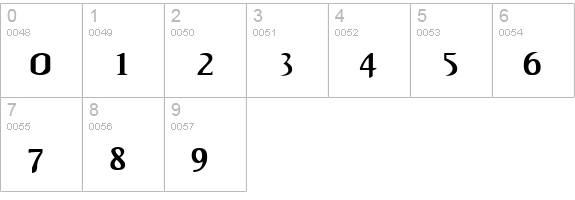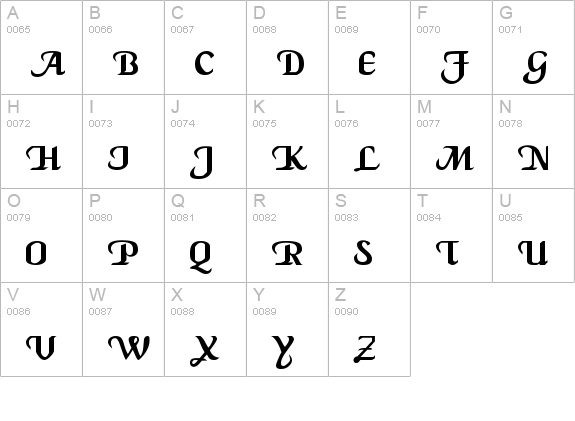
CaligulaA Font Details
CaligulaA font is a stunning display typeface that exudes elegance and sophistication. With its intricate details and classic design, this font is perfect for adding a touch of luxury to any project. The sharp serifs and clean lines make CaligulaA font a versatile choice for both headings and body text. What makes CaligulaA font even more appealing is that it is available for free download at FontsMarket.com. This means you can elevate your designs without breaking the bank. Whether you're working on a branding project, invitation, or website, CaligulaA font is sure to make a lasting impression. Download it today and add a touch of elegance to your next design project.